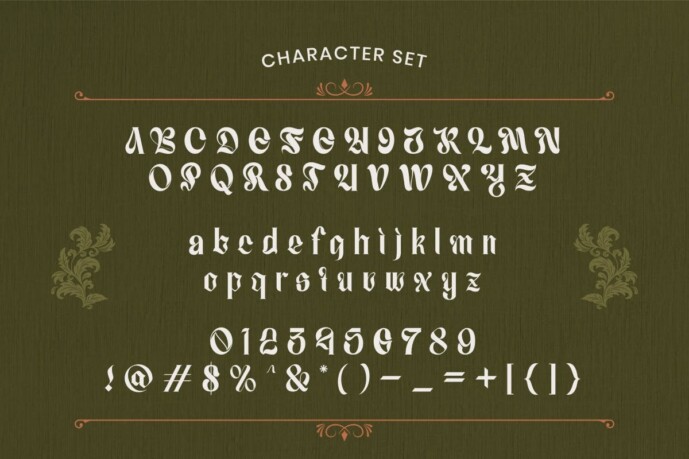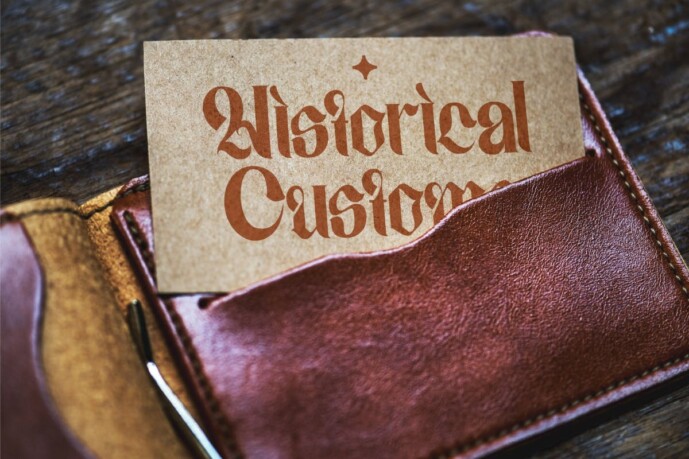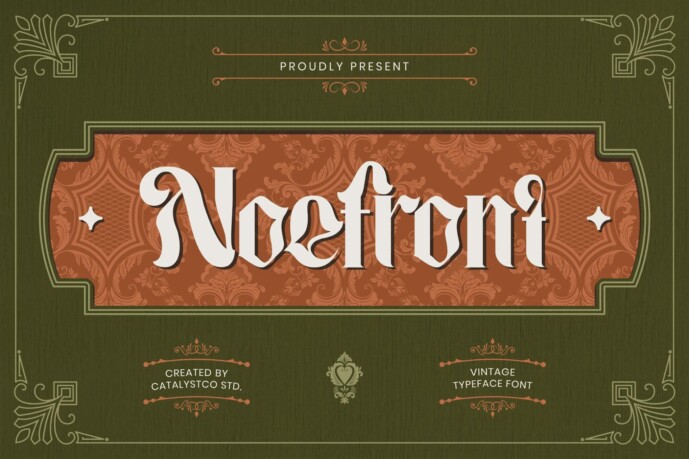
Noefront Vintage Font
Designer: catalystco
Noefront Vintage Typeface font is excellent for making quotes, texts, logotypes, magazine headers and many more.